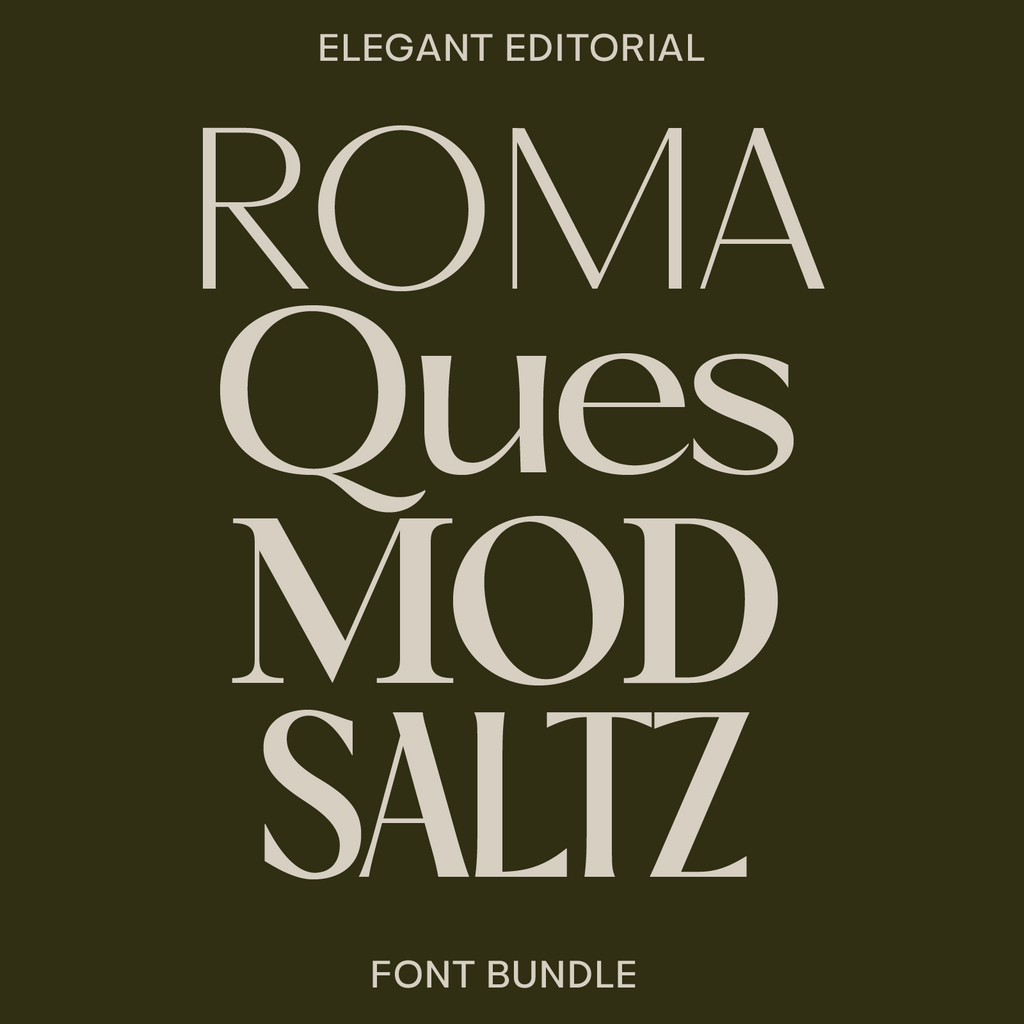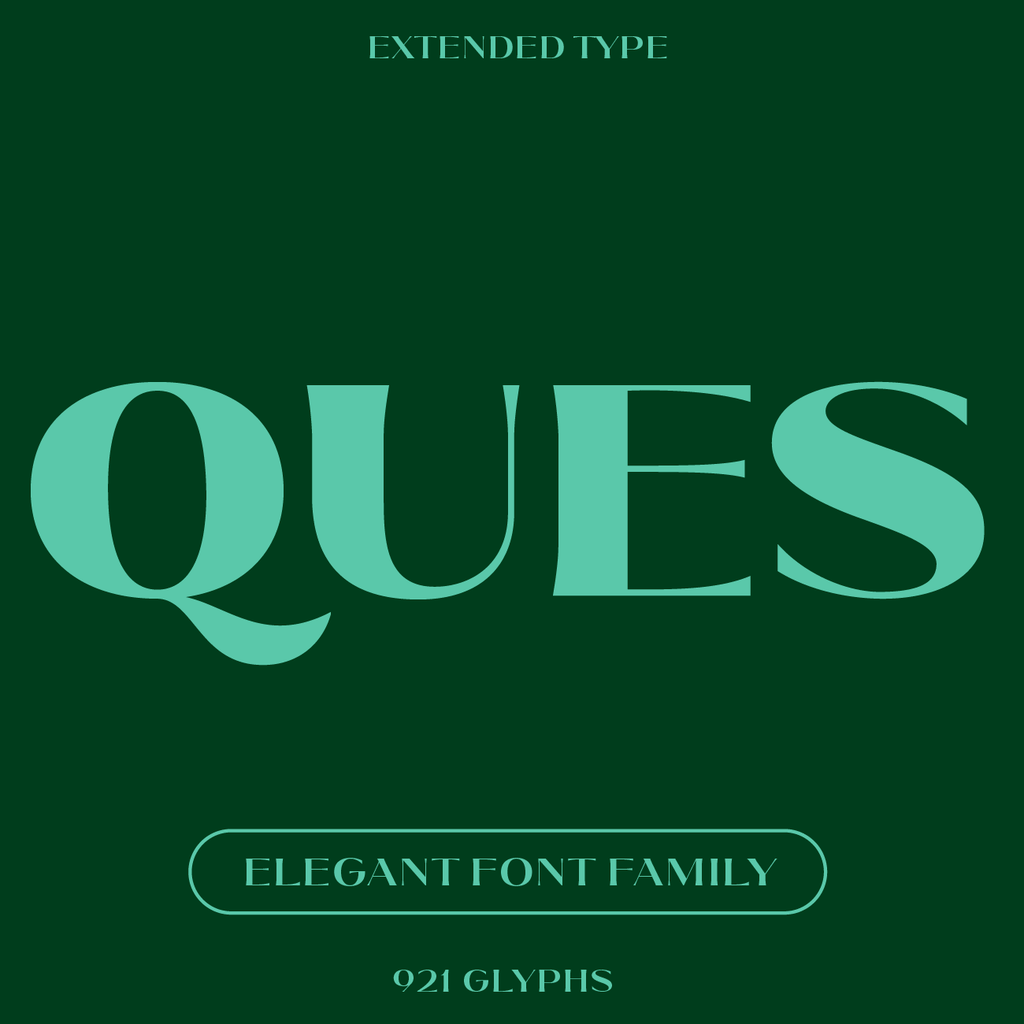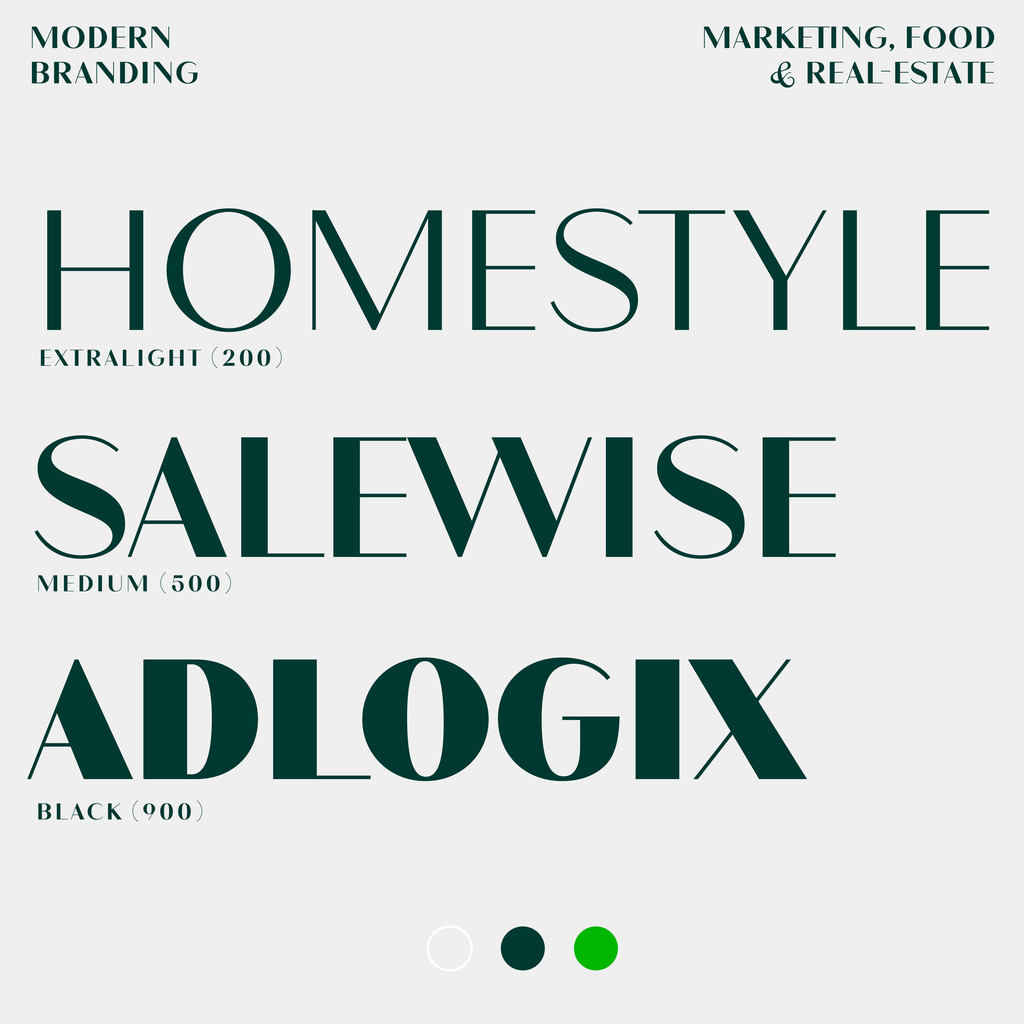
Elegant Editorial Pack
Four serifs that handle elegance well. Made for magazine work, fashion brands, and packaging that wants to feel a little fancy. Includes 4 full families: Roma, Ques, Mod and Saltz.